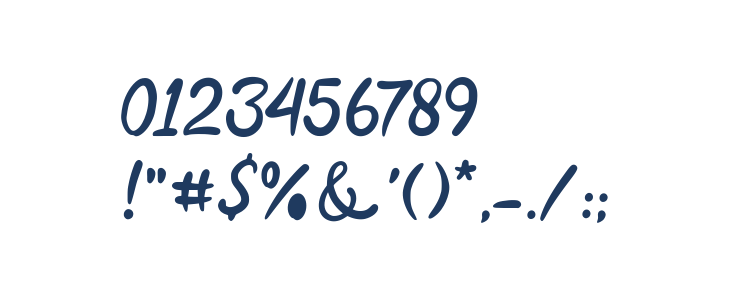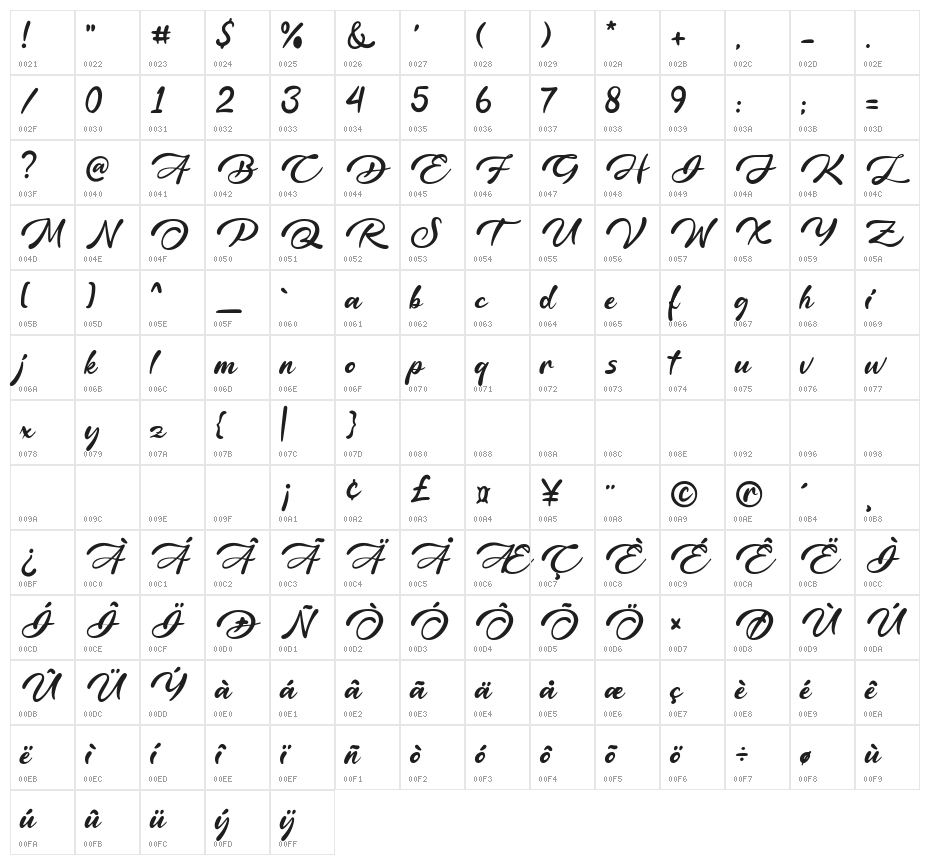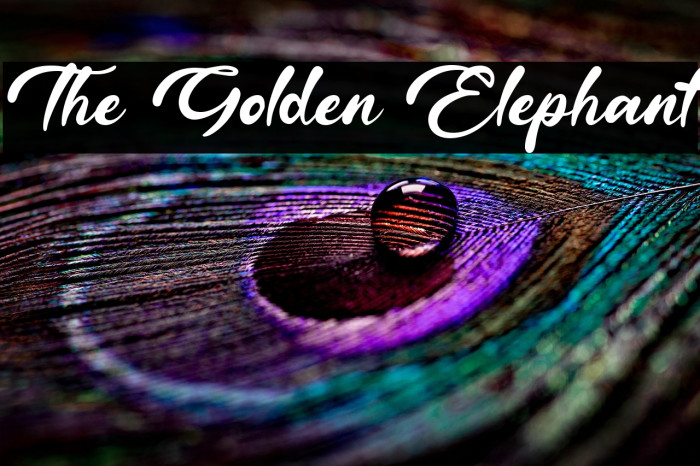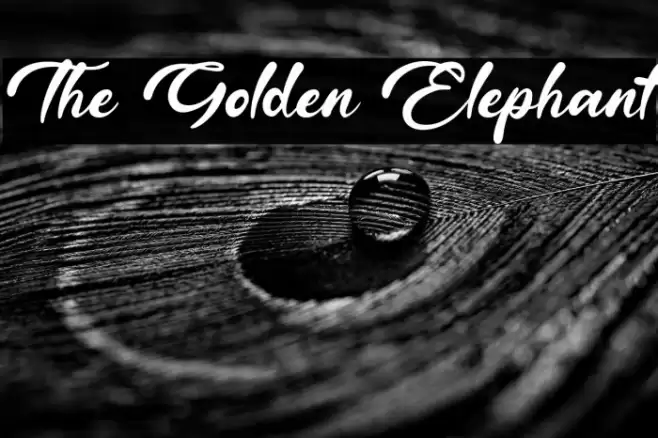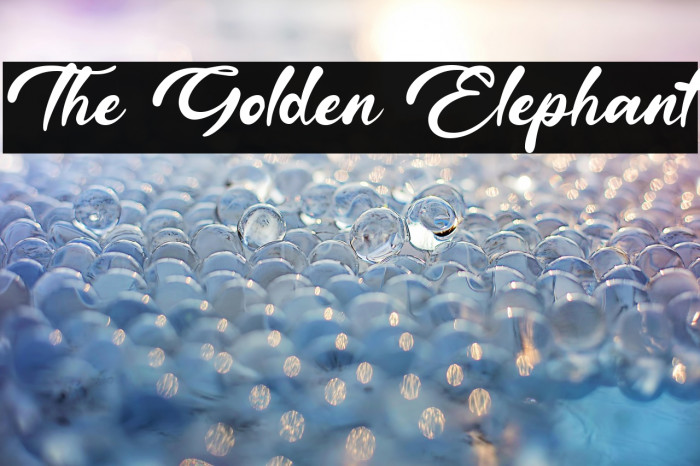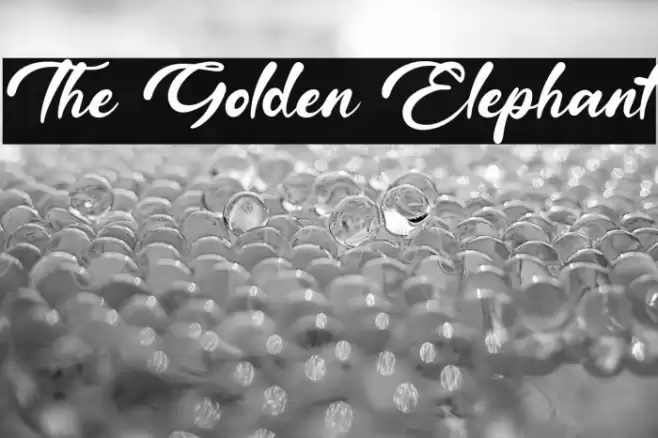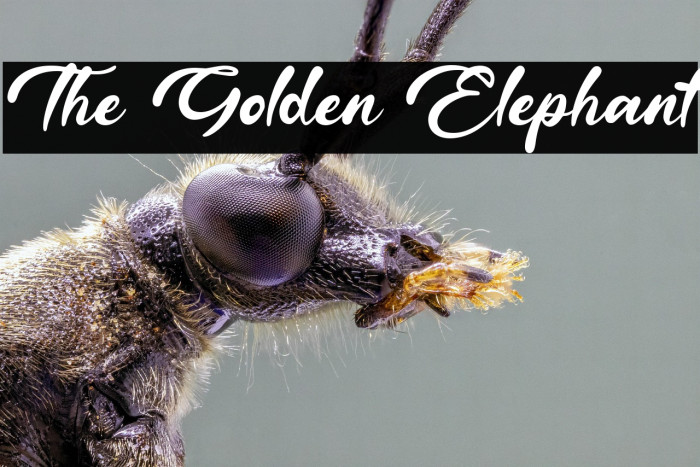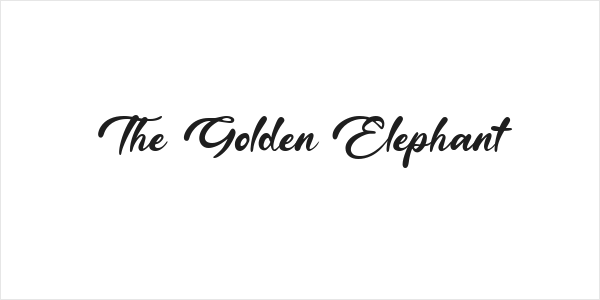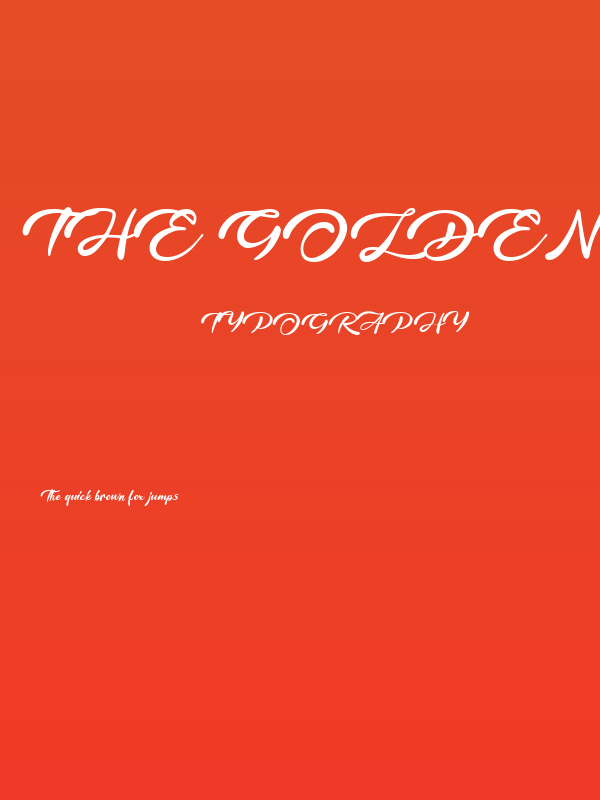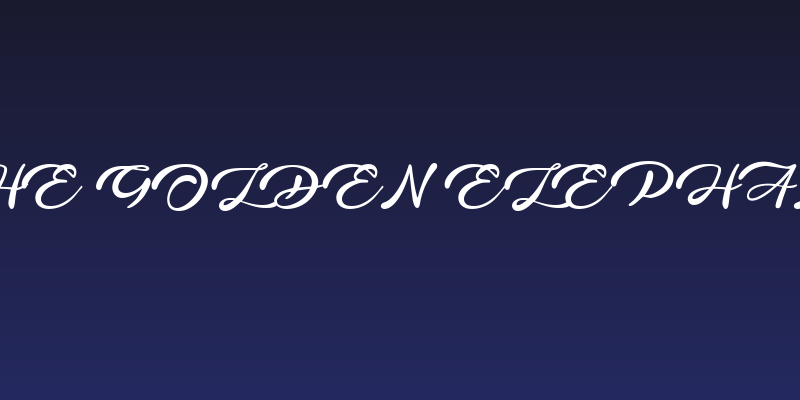
The Golden Elephant Font
The Golden Elephant Description
This font features a dynamic and fluid script style, characterized by its elegant, flowing curves and smooth connections between letters. The uppercase letters are slightly more ornate, with graceful loops and swashes that add a touch of sophistication. The lowercase letters maintain a consistent rhythm, enhancing readability while preserving the artistic flair. The numerals are bold and clear, matching the overall aesthetic of the font. Special characters are designed with the same attention to detail, ensuring they integrate seamlessly with the text. This font exudes a sense of elegance and creativity, making it suitable for a variety of design applications.